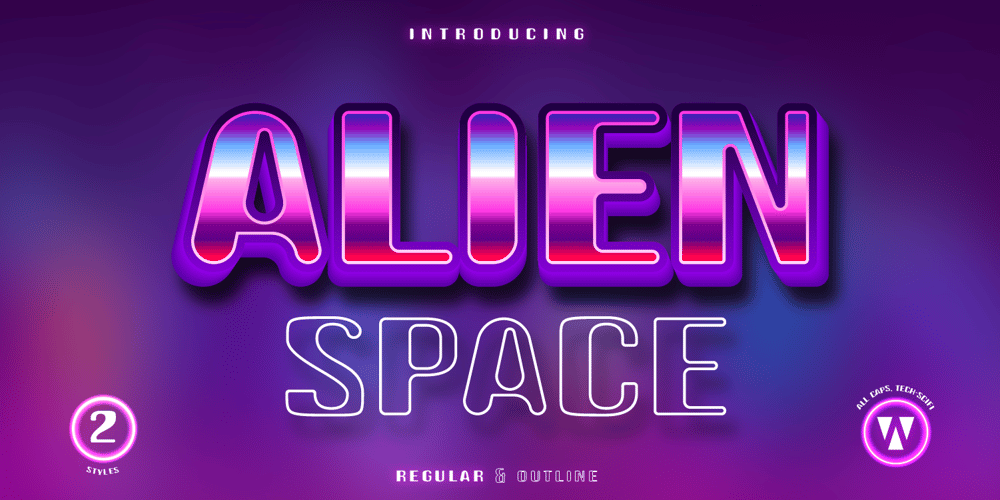
Alien Space Font Family was designed by Yahhya Anas Atok Illah and published by WNGSTD. Alien Space contains 2 styles and family package options. Alien Space display font is a playful and modern font. Alien space family contains regular and outline fonts. Alien Space is perfectly suited for traditional media and the web. Great for logos, banners, posters, and graphic artists. Its playfulness makes it great for creative projects, inspirational wall poster, or for communicating your brand.